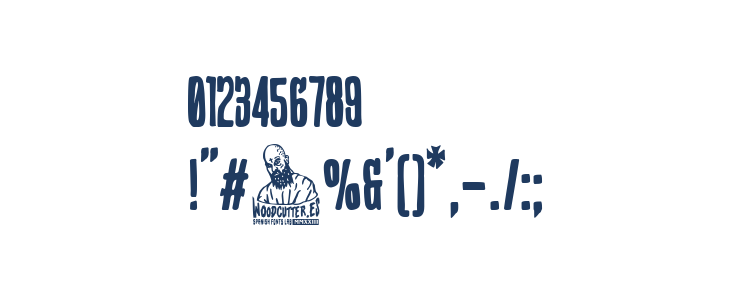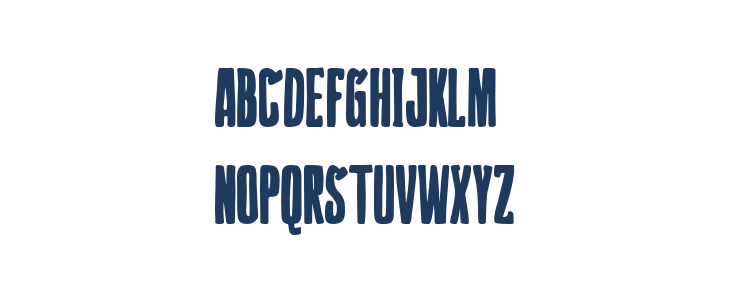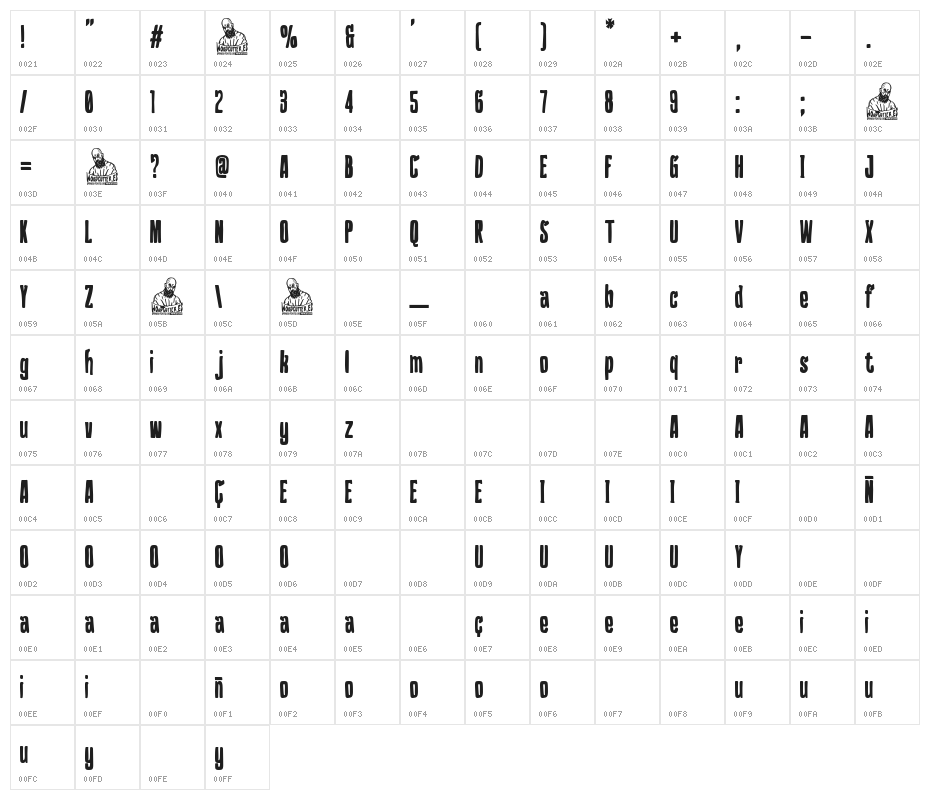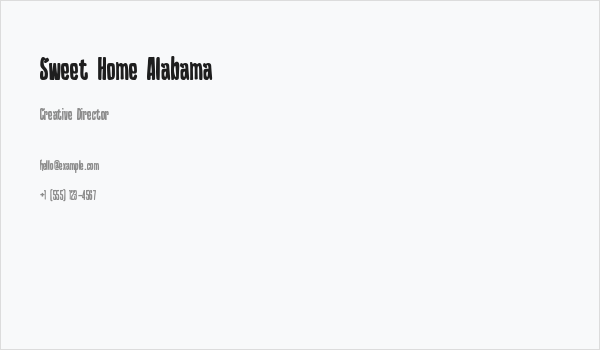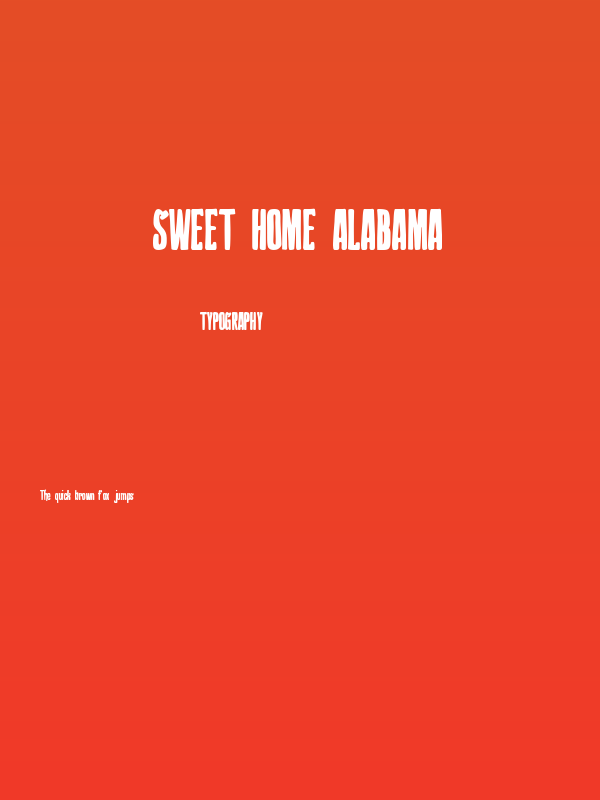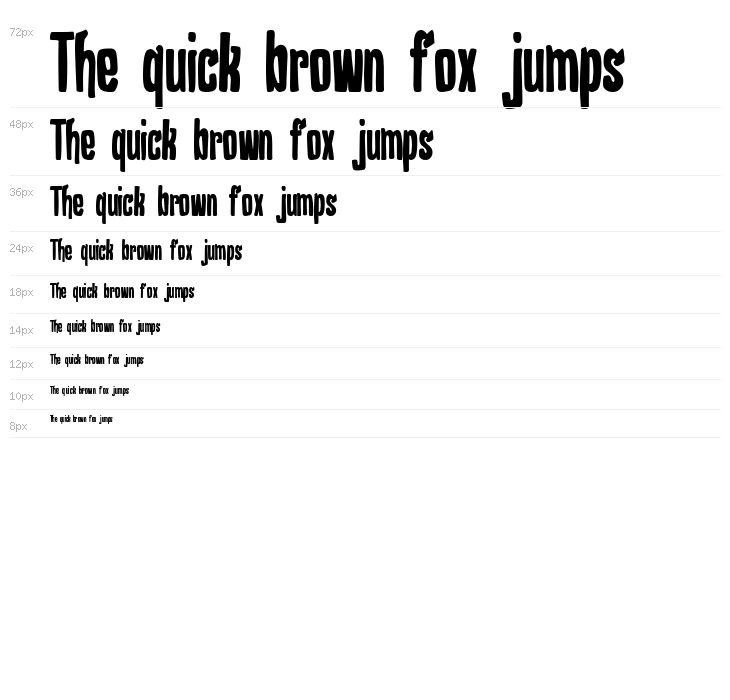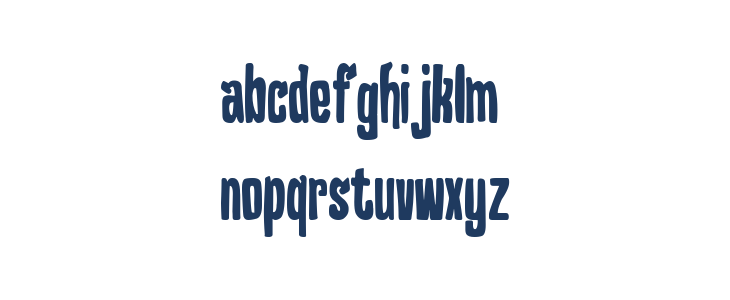
Sweet Home Alabama Font
Sweet Home Alabama Description
A bold, playful display font with irregular, hand-drawn letterforms and slightly condensed proportions. The characters have rounded edges and a whimsical, informal feel, with varying stroke thickness and a lively, energetic appearance.
| Overall Style | Playful, Hand-drawn, Decorative |
| Use Case | Headlines, Posters, Logos, Signage |
| Proposed Projects | Posters, childrenΓ’β¬β’s books, party invitations, branding for casual or fun products, signage. |